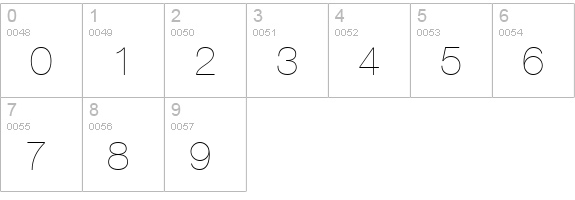
Context Reprise Light SSi Extra Light is a refined, elegant variant in the Context typeface family \xE2\x80\x94 well suited to elegant body text, refined sub-headings, and luxury branding.
Context Reprise Light SSi Extra Light font is a delicate and elegant typeface that exudes sophistication and modernity. With its extra light weight, this font is perfect for creating a clean and minimalist look in your design projects. Its graceful curves and precise letterforms make it a versatile choice for a wide range of applications, from branding to editorial design. The best part about Context Reprise Light SSi Extra Light font is that it is available for free download at FontsMarket.com. This means you can easily access this beautiful font and use it in your projects without any cost. Whether you are working on a personal project or a client's design, this font will add a touch of refinement and style to your work. Don't miss out on the opportunity to enhance your designs with the subtle beauty of Context Reprise Light SSi Extra Light font. Download it for free today at FontsMarket.com and elevate your design projects to the next level.